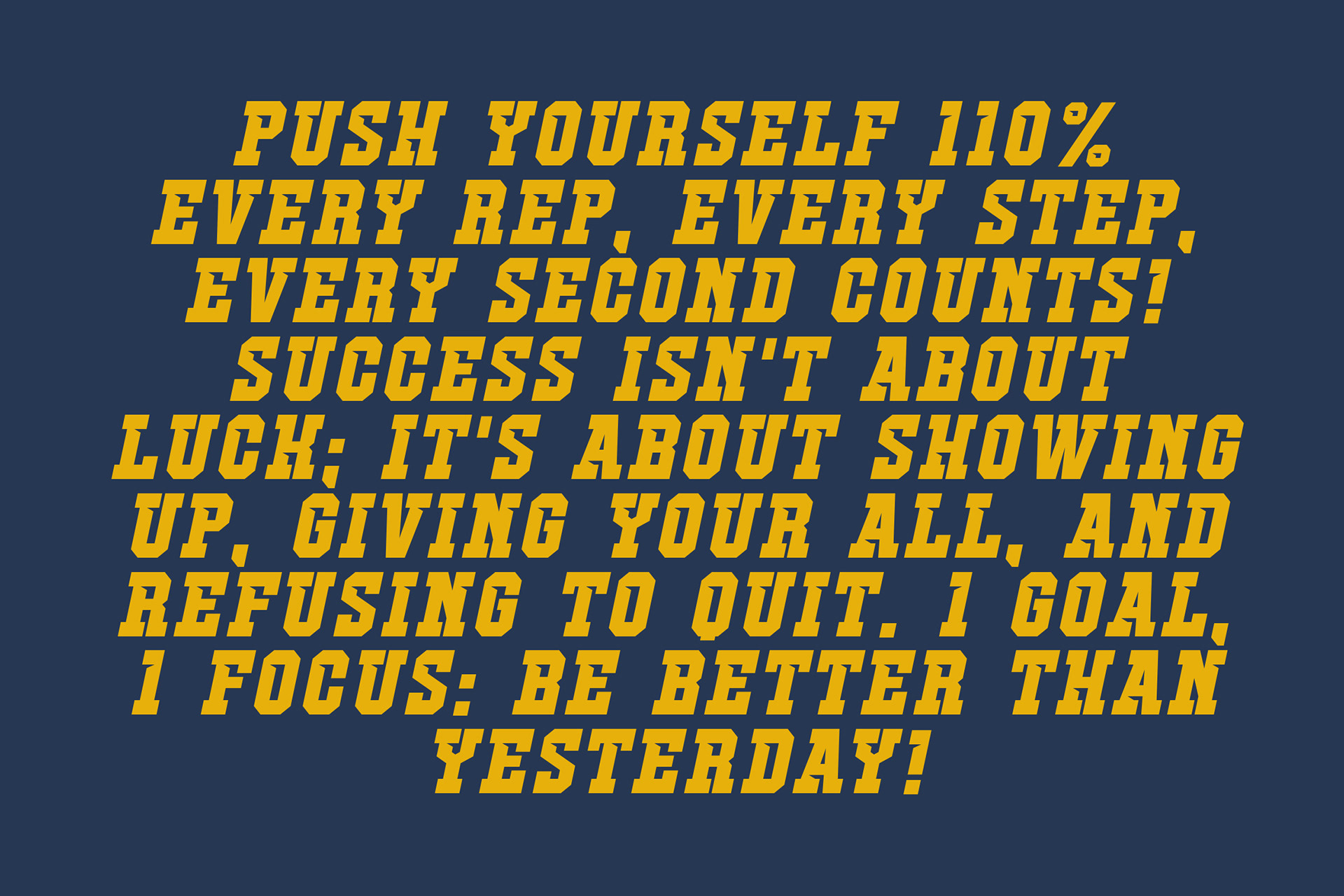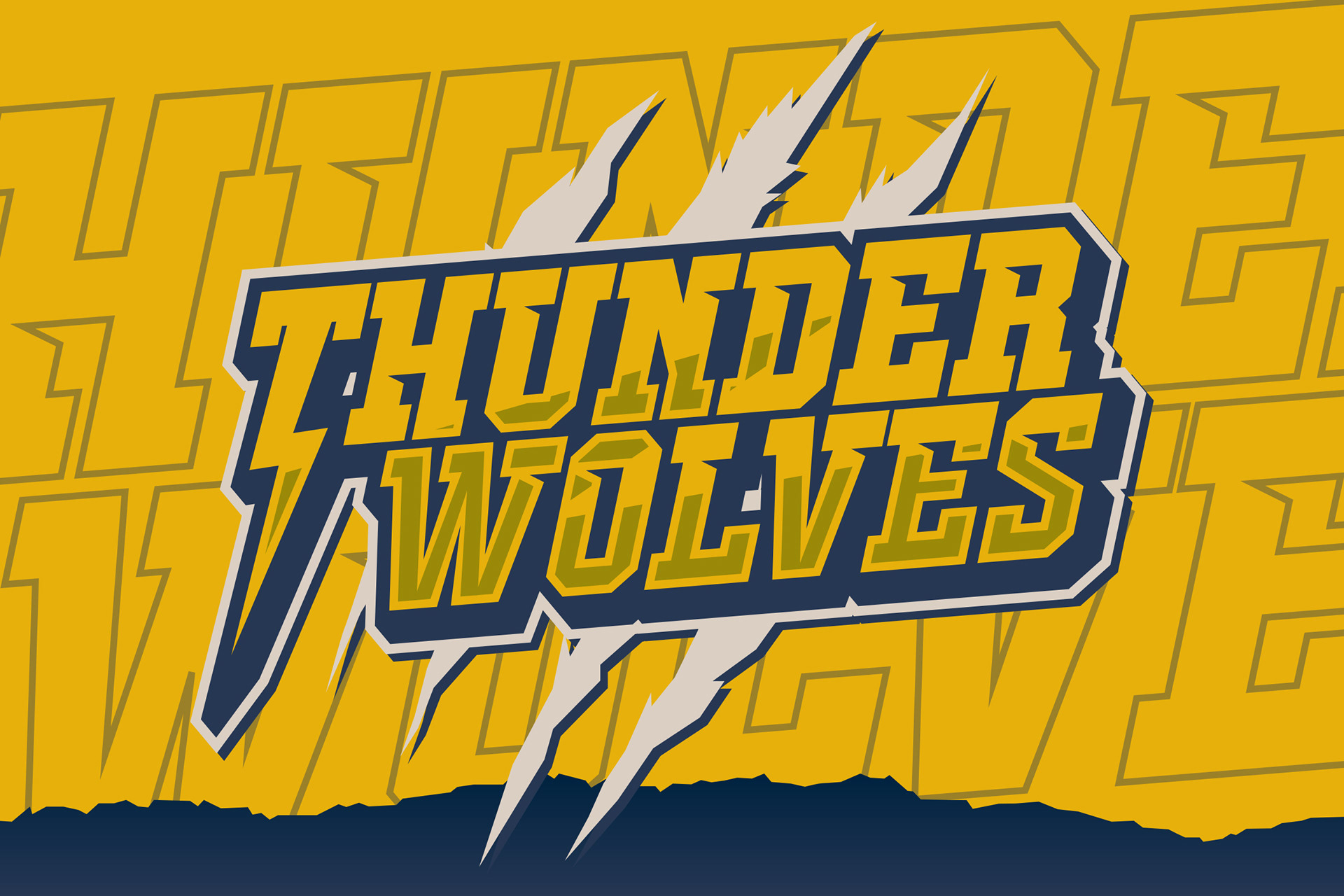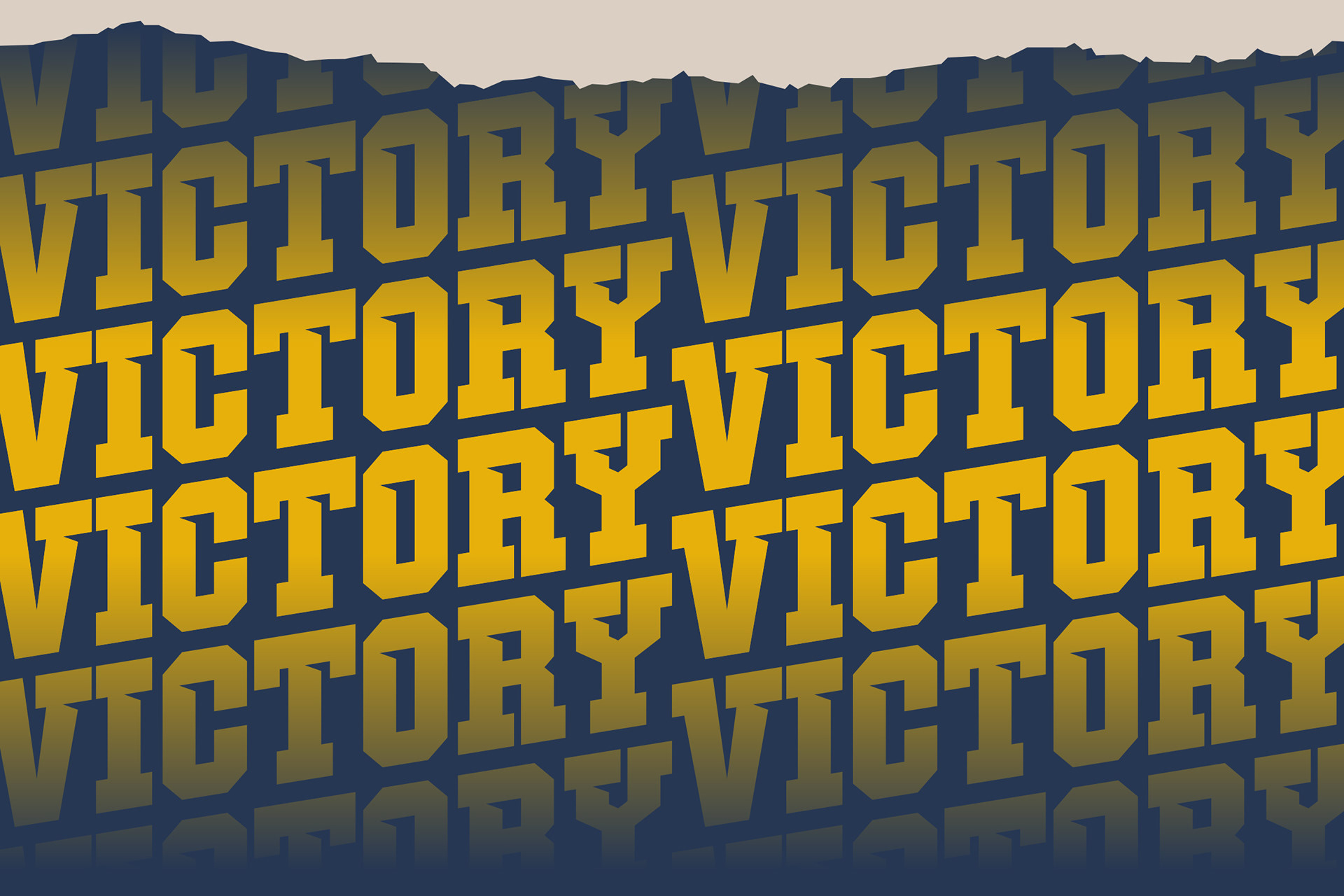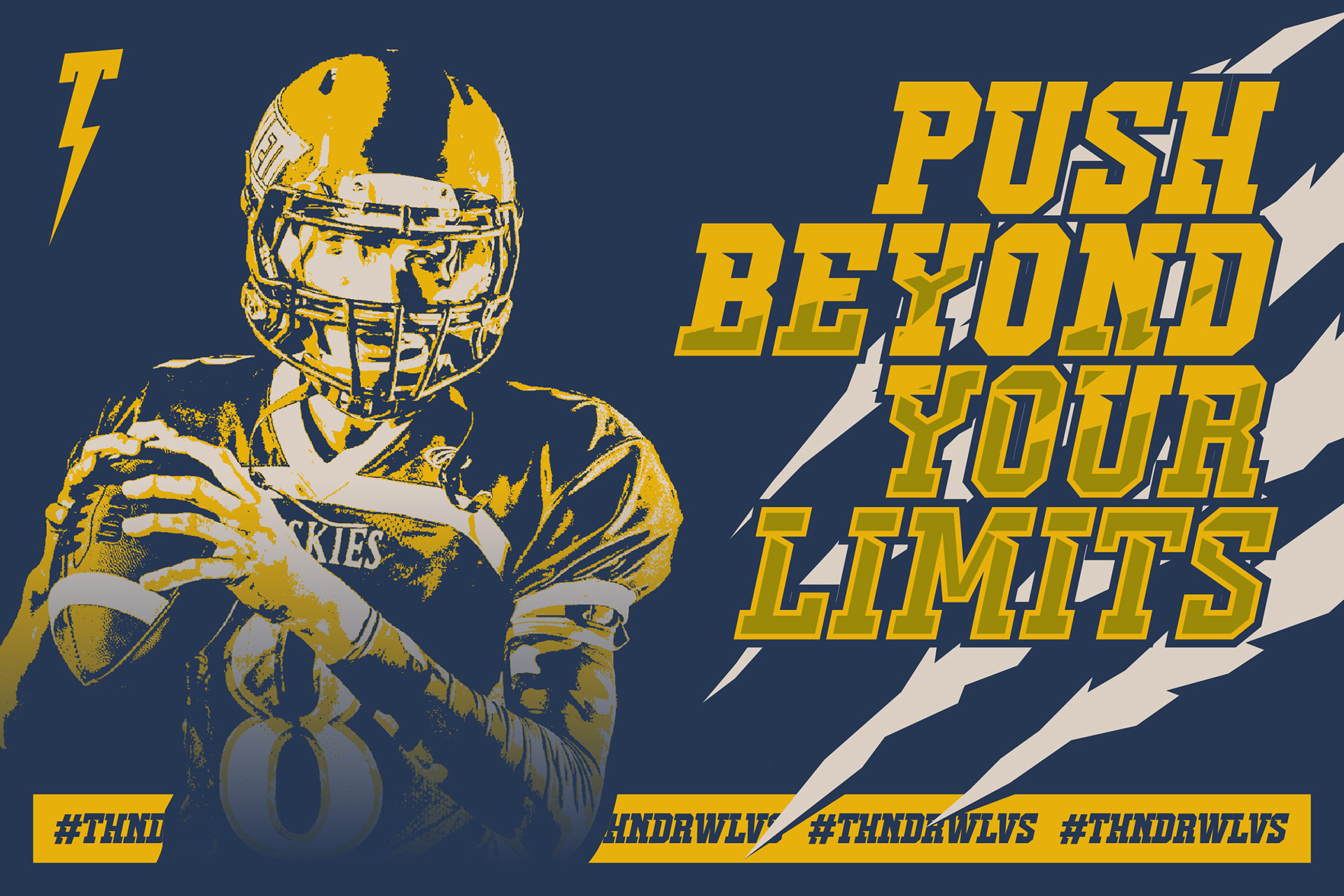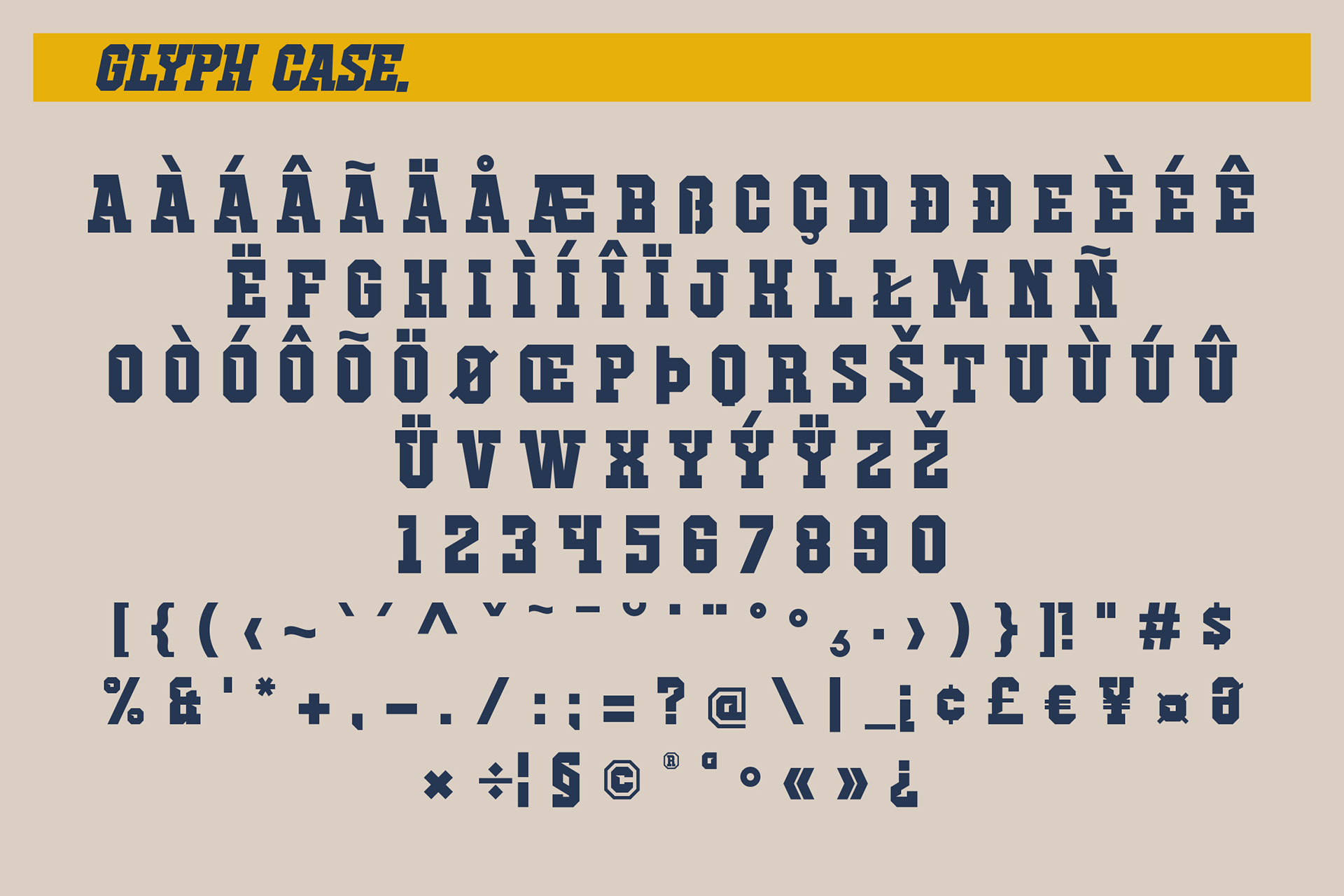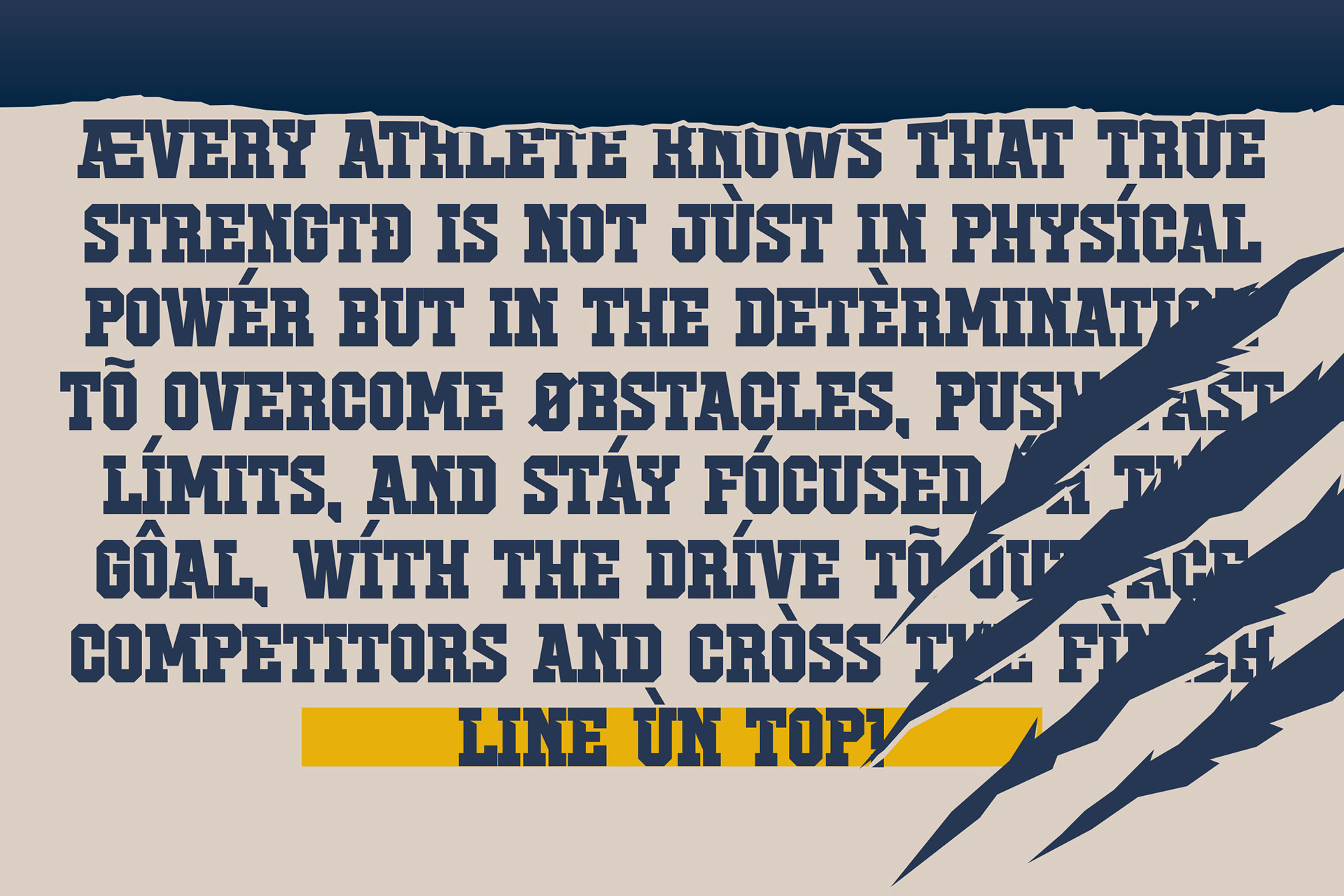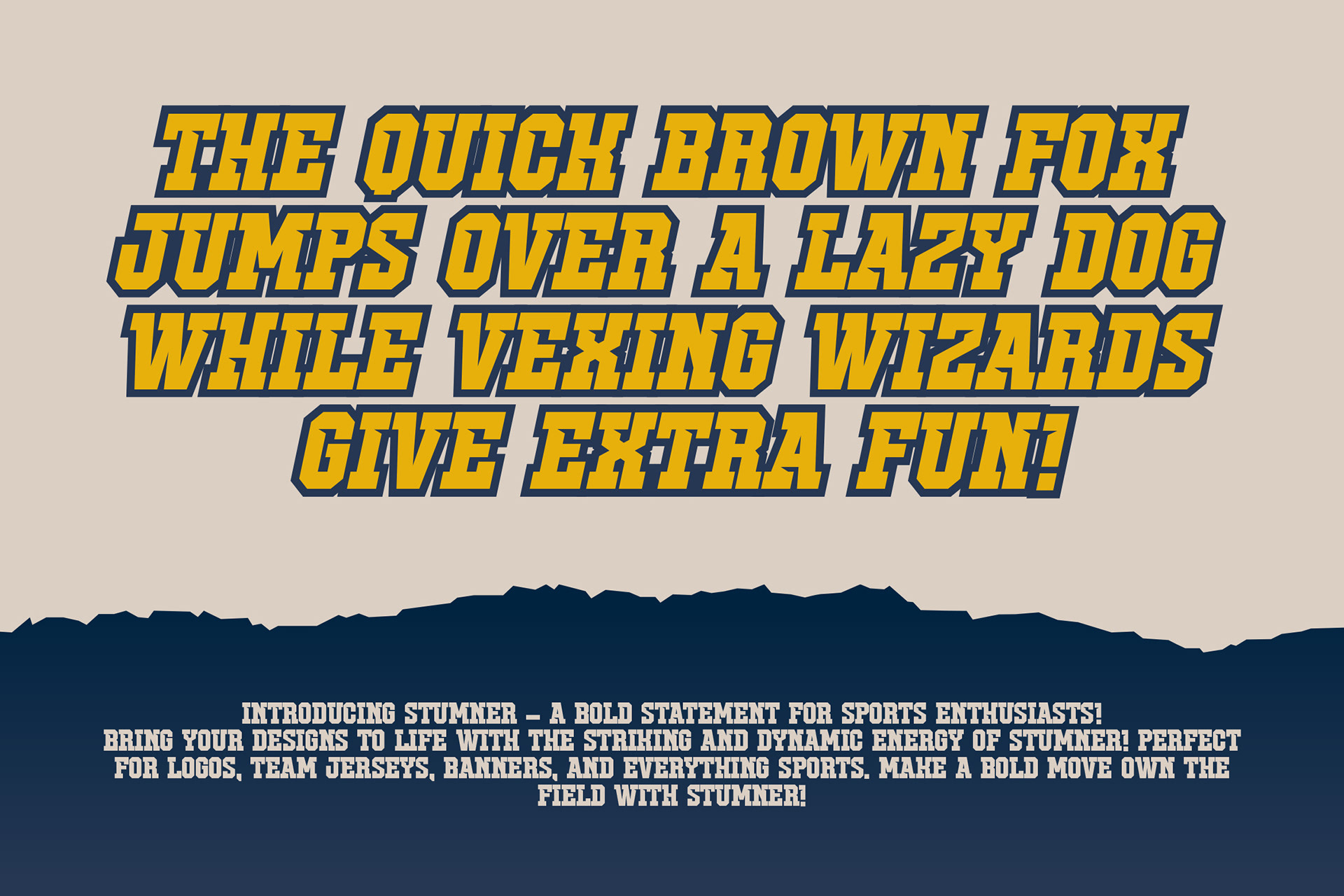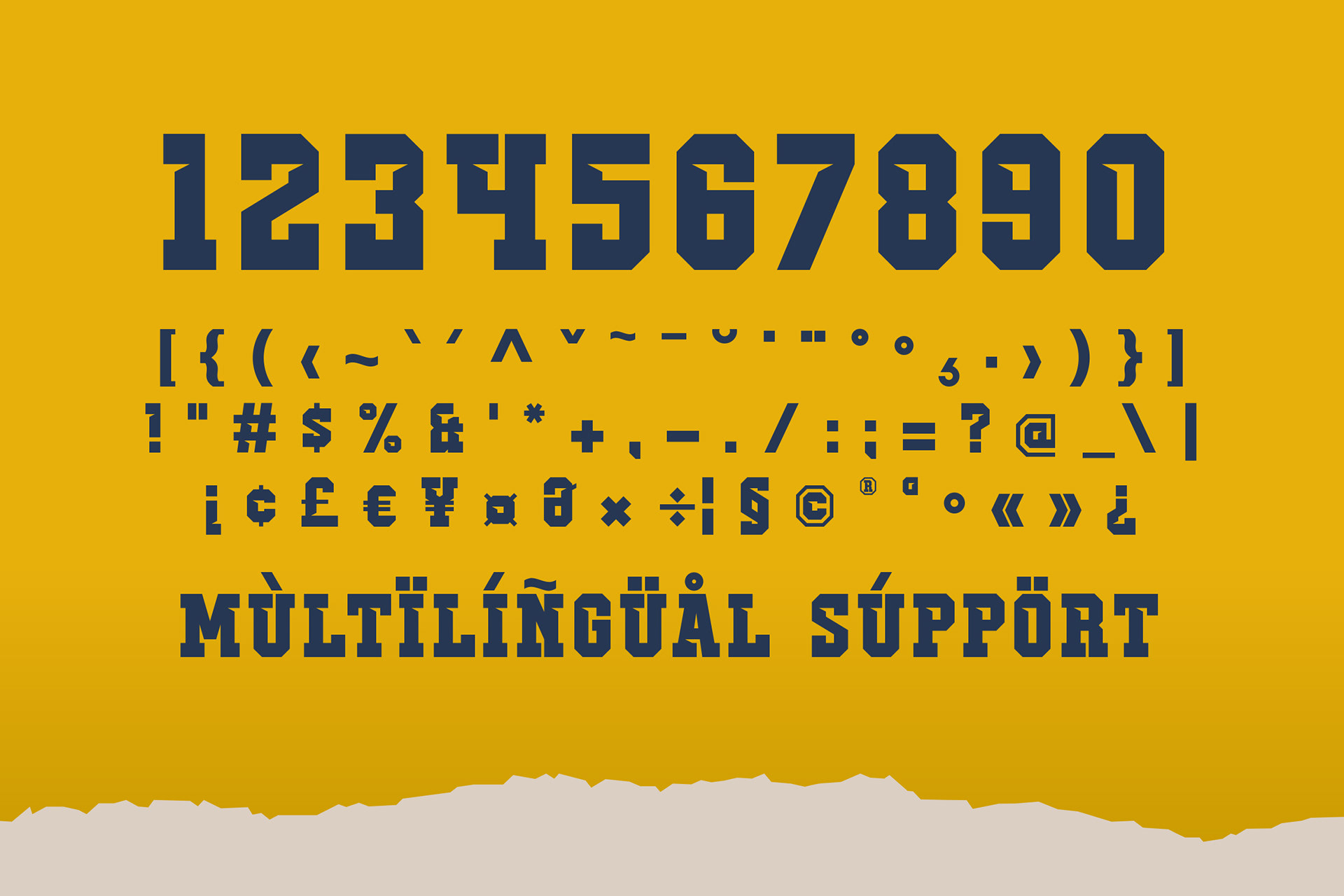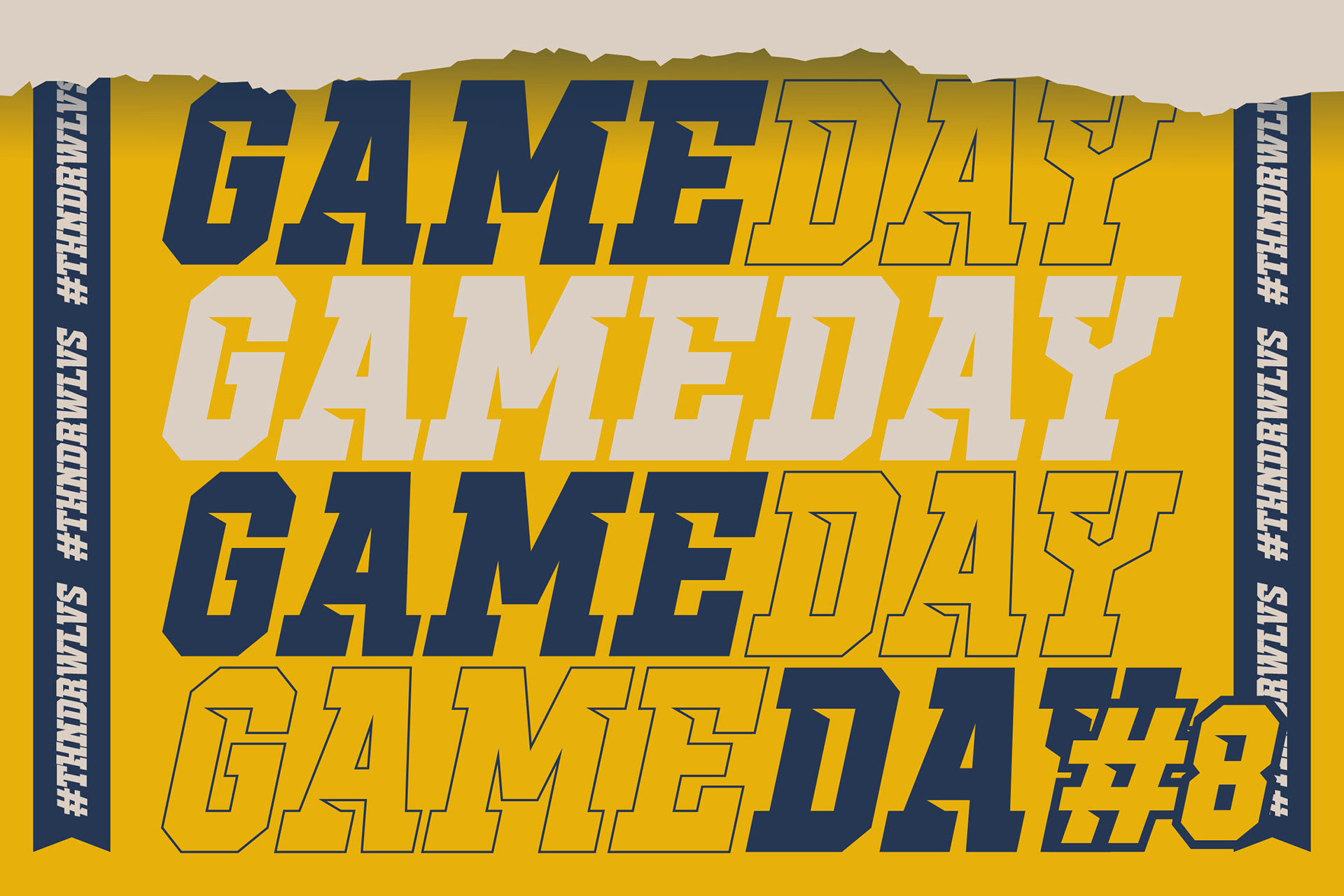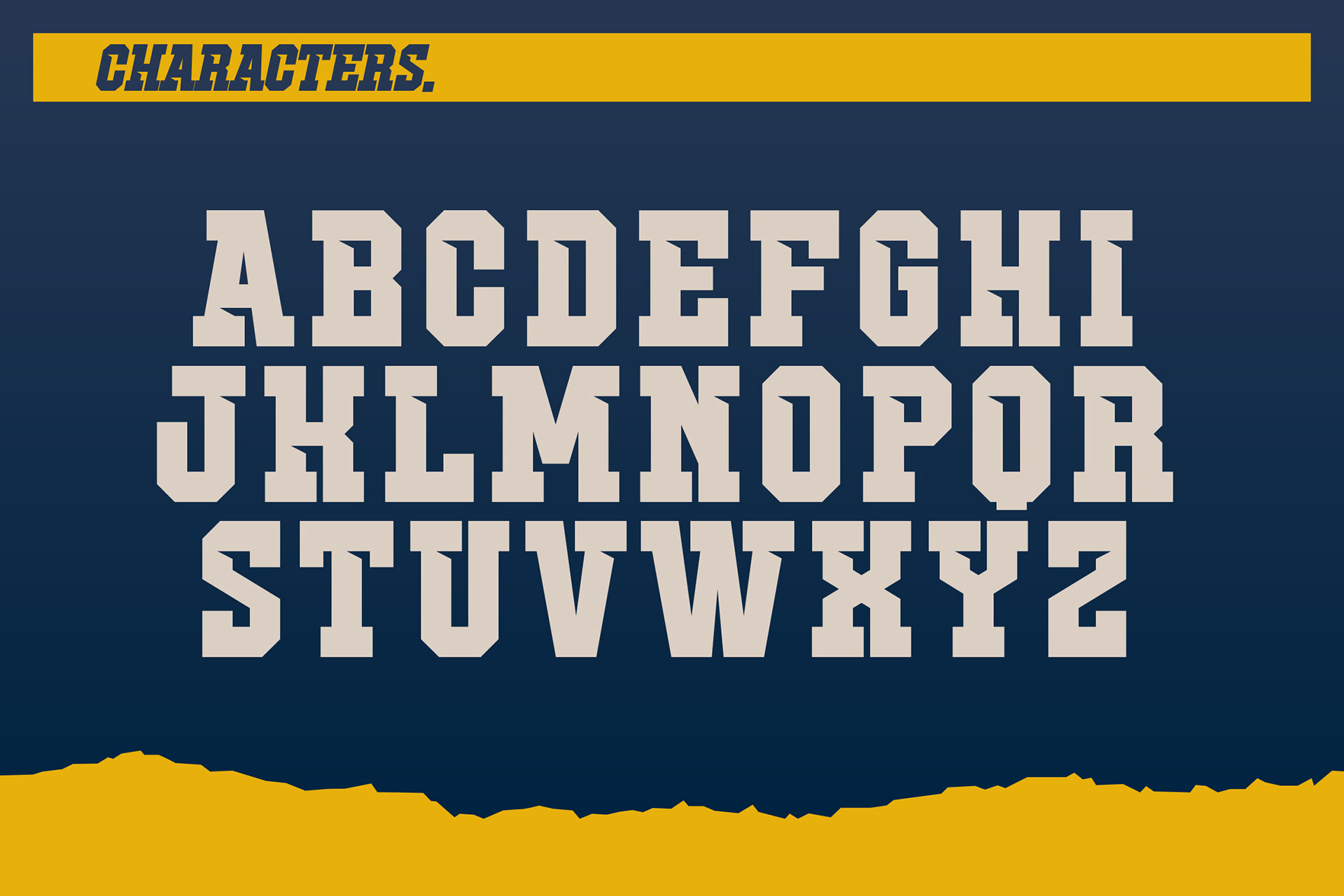
Stumner - The Ultimate Bold Sport Font for Game-Changing Designs! Take your designs to the next level with Stumner, a powerful and dynamic font perfect for sports branding, team logos, and bold headlines. Packed with features to meet all your creative needs.
Stumner - Sport Display Font design by Ario Sabrang Damar publish under Snape Design Studio